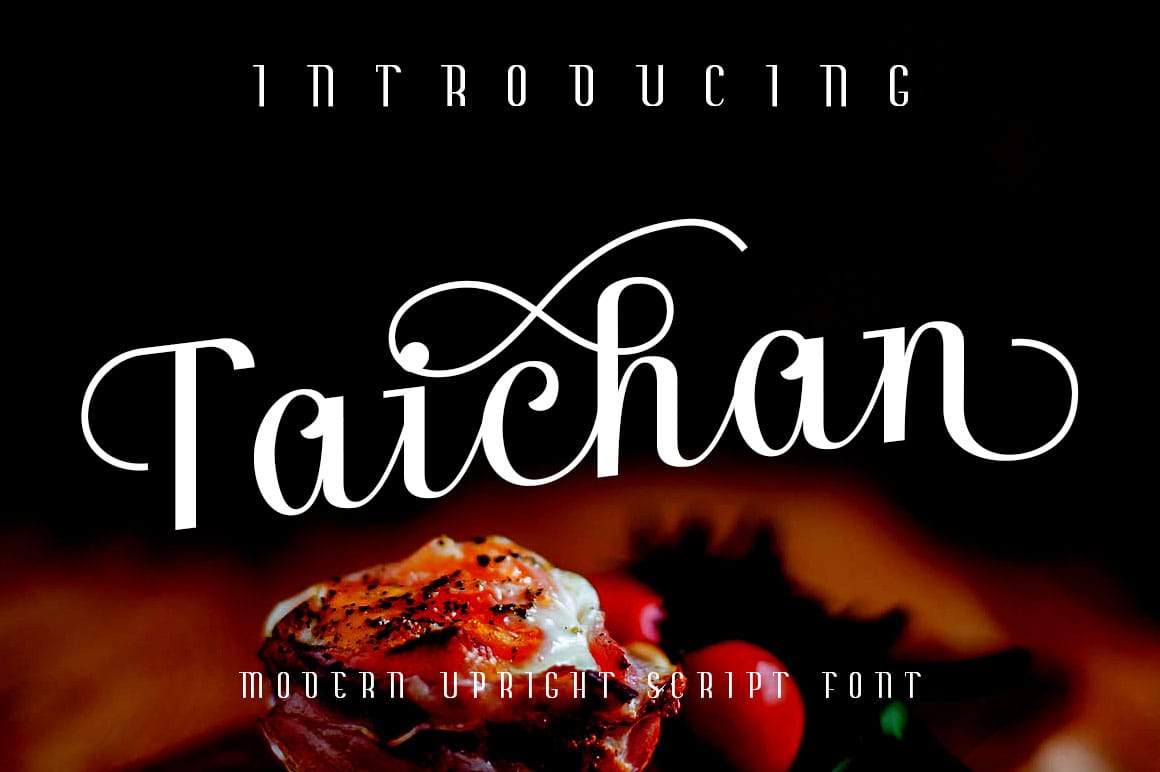
If you're in search of a unique and modern script font, you should consider Taichan Script. This font offers a fresh take on upright script designs, making it suitable for various creative projects. Whether you need it for personal use or a professional design, Taichan Script provides an appealing aesthetic.
One of the standout features of this font is its Open Type capabilities. These features enhance its versatility, allowing you to mix and match styles to suit your needs.